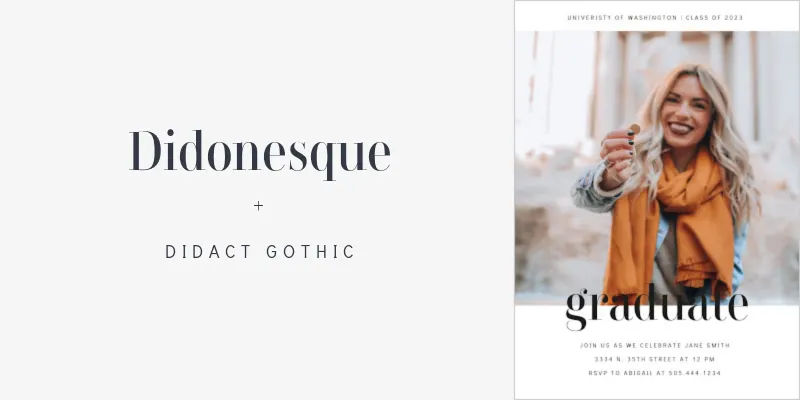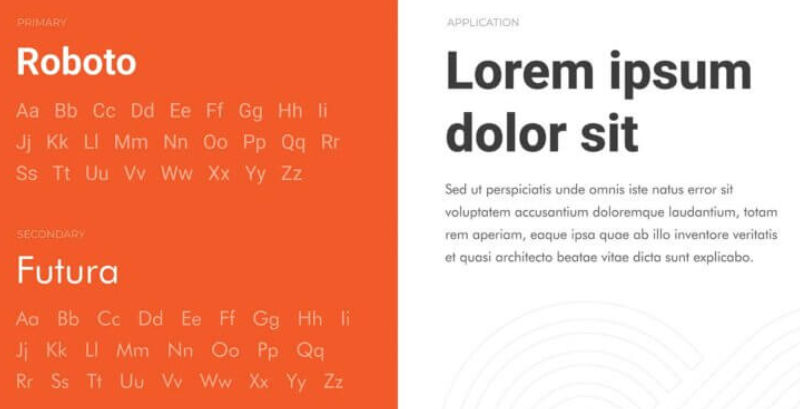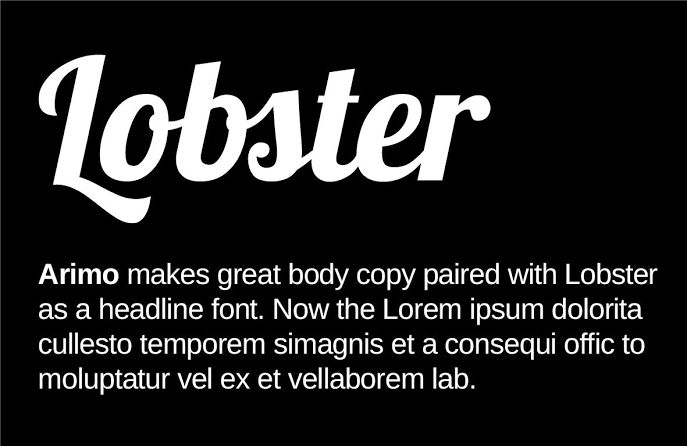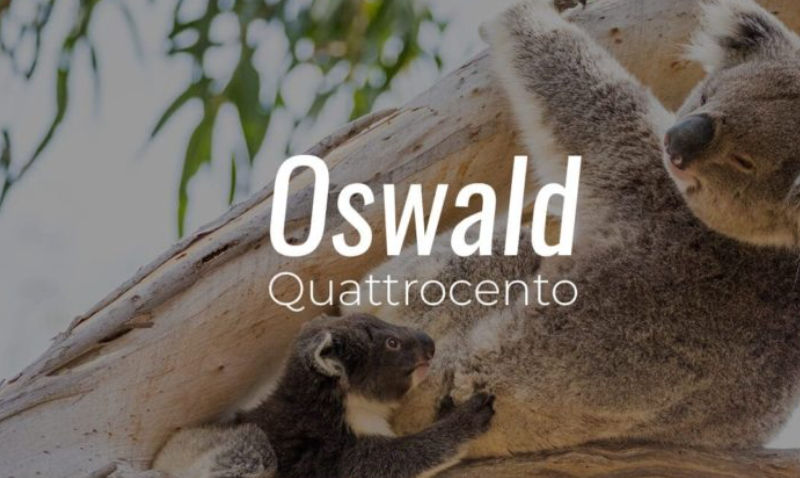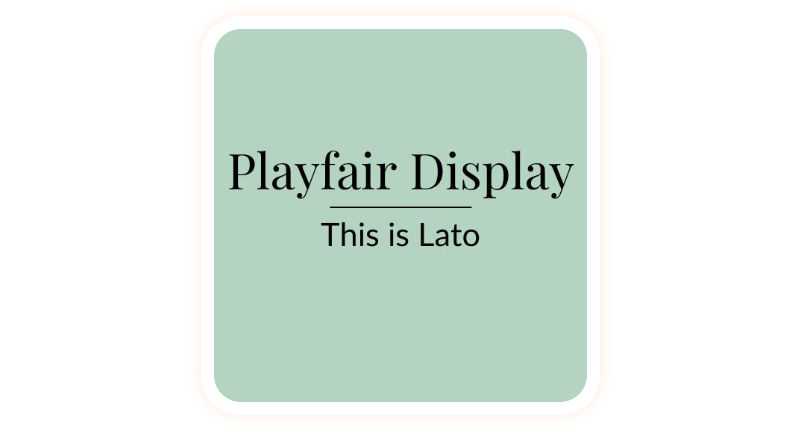
Good design relies heavily on typography, and font pairing is a big part of that. As Kaarwan points out, the right font combinations make text easier to read and more engaging. That’s why knowing how to pair fonts like a pro is a must for any designer looking to create standout work.
Even so, font pairing isn’t just about making things look nice. Instead, it’s a key skill for crafting well-structured and professional designs. The right mix of fonts helps create balance and guide the reader’s eye. So, how to do it effectively? Keep reading to find out!
Key Takeaways
- Pairing fonts with clear contrast, like serif and sans-serif or bold and light, ensures readability and hierarchy.
- Limit font choices to two or three for a clean and cohesive look.
- Selecting fonts that match the intended mood enhances the overall message and emotional impact of the design.
5 Main Rules on How to Pair Fonts Like a Pro
If you’re ready to dive into the font combination world, we’ve curated five key rules on how to pair fonts well to enhance your designs. So, stick to these guidelines to attract more visitors!
1. Avoid Pairing Similar Fonts
One of the biggest mistakes in font pairing is using two fonts that look too similar. While it might seem like they should work well together, they often create a confusing or redundant effect. When fonts are too close in appearance, they fail to establish a clear hierarchy and can make your text look cluttered rather than stylish.
What to Avoid:
- Don’t pair two serif fonts with similar stroke widths and structures (e.g., Times New Roman with Garamond).
- Avoid combining two sans-serif fonts with nearly identical proportions (e.g., Helvetica with Arial).
What to Do Instead:
- Mix Didonesque, a bold serif font, with Didact Gothic’s sleek and slim sans serif font for a well-balanced visual contrast.
2. Limit the Number of Fonts Used
A common rule in learning how to pair fonts like a pro is to stick to a maximum of two or three fonts in a single design. Too many fonts can create a chaotic and unprofessional look, making it difficult for readers to focus on your message.
Recommended Font Combinations:
- Two Fonts: A headline font + a body text font (e.g., Playfair Display + Lato).
- Three Fonts: A headline font + a subheading font + a body text font (e.g., Bebas Neue + Raleway + Open Sans).
3. Combine Bold and Light Fonts for Contrast
Contrast is a key principle in font pairing, and one of the easiest ways to achieve it is by using fonts with different weights. Pairing a bold, heavy font with a thin, delicate font can create a visually appealing effect while ensuring readability.
Good Pairing Examples:
- Chunky Header + Thin Subheading: Oswald (for headers) + Quattrocento (for subheadings).
4. Use Font Pairing to Set the Intended Mood
Another way to learn how to pair fonts like a pro is to understand that different fonts evoke different emotions. Your choice of fonts should align with the message and tone of your design.
How to Match Fonts with Mood:
- Elegant and Sophisticated: Use a combination of serif fonts with thin strokes and high contrast (e.g., Baskerville + Didot).
- Modern and Minimalist: A clean sans-serif font works best (e.g., Futura + Roboto).
- Playful and Friendly: Try rounded or handwritten fonts (e.g., Pacifico + Nunito).
- Professional and Corporate: Stick to classic, neutral fonts like Helvetica and Georgia.
5. Pair Decorative Fonts with Simplicity
Display or novelty fonts have strong personalities, so they should be paired with simple fonts to avoid overwhelming the reader. By understanding how to choose font pairings correctly ensures a balanced and visually appealing design.
What to Avoid:
- Never pair two decorative or script fonts together. They will compete for attention and create visual noise.
- Avoid using all-caps novelty fonts with another strong, bold typeface.
Best Practices:
- Pair a decorative font with a neutral sans-serif font (e.g., Lobster + Arimo).
- Use a bold display font for the main title and a simple, readable font for the body text.
Experiment with Fonts and Create Stunning Typography!
Mastering how to pair fonts like a pro takes practice, but experimenting with different styles will sharpen your eye for great typography. The right font combination can transform a simple design into something visually striking. So, don’t be afraid to mix and match until you find the perfect balance.
To make the process even easier, using high-quality fonts is essential. A well-crafted typeface not only improves readability but also adds personality to your work. Whether you need sleek modern fonts or bold statement typefaces, choosing the right ones will elevate your design instantly.